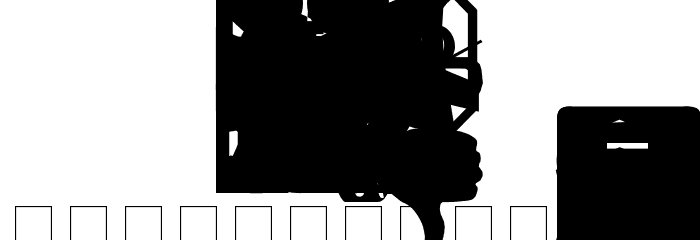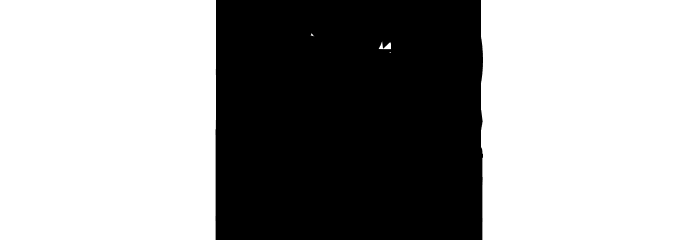
Business/Industrial Dingbats Font
Business/Industrial Dingbats Description
This is a dingbat font featuring various business and industrial-themed pictograms and symbols instead of standard alphanumeric characters. The glyphs are bold, solid, and highly stylized, representing objects and icons related to industry and commerce.
A pictogram dingbat font with business and industrial icons from Images & Symbols fonts.
- Proposed Projects: Infographics, signage, instructional materials, icon sets, presentations.
- Overall Style: Decorative, Industrial
- Use Case: Icons, visual communication, signage